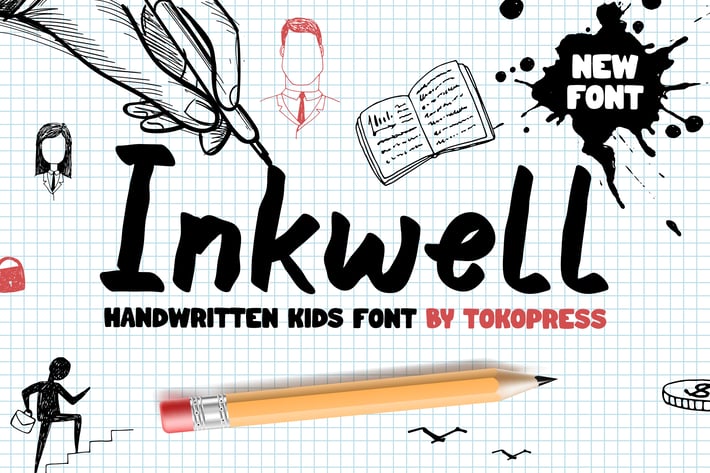
Inkwell - handwriting kids font
Inkwell - Handwriting Kids Font
Inkwell is a childlike handwritten font featuring soft curves, irregular motion, and a casual flow—emulating the spontaneous look of real ink on paper. With low contrast strokes and playful bounce, it feels both familiar and expressive, ideal for preschool marketing, food packaging, toys, and birthday themes.
Inkwell exudes lighthearted charm and is designed for creators seeking a friendly, authentic look that appeals to kids and parents alike. Its approachable vibe and organic imperfections give it warmth and visual sincerity.
From snack boxes and children's toys to educational flyers and event posters, Inkwell delivers visual playfulness without sacrificing readability. Its handwritten style is highly relatable in branding for kids’ health snacks, school products, online shops, and birthday party kits. Perfect for brands wanting to stand out with a joyful, crafted identity, this font helps convey trust, excitement, and youthful energy.
Key Features :
Authentic Handwritten Feel
• Built with natural irregularity and real-ink texture that mirrors kids’ actual writing styles.
Kid-Friendly Energy
• Rounded shapes and gentle curves keep it approachable and age-appropriate across digital or print.
Great for Playful Design
• From juice labels to kids’ YouTube banners, it brings cohesion to vibrant and fun visual identities.
Highly Versatile
• Works equally well in posters, packaging, social content, or digital stories—both for kids and parents.